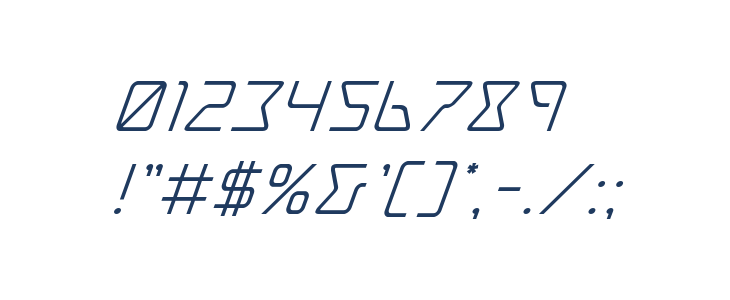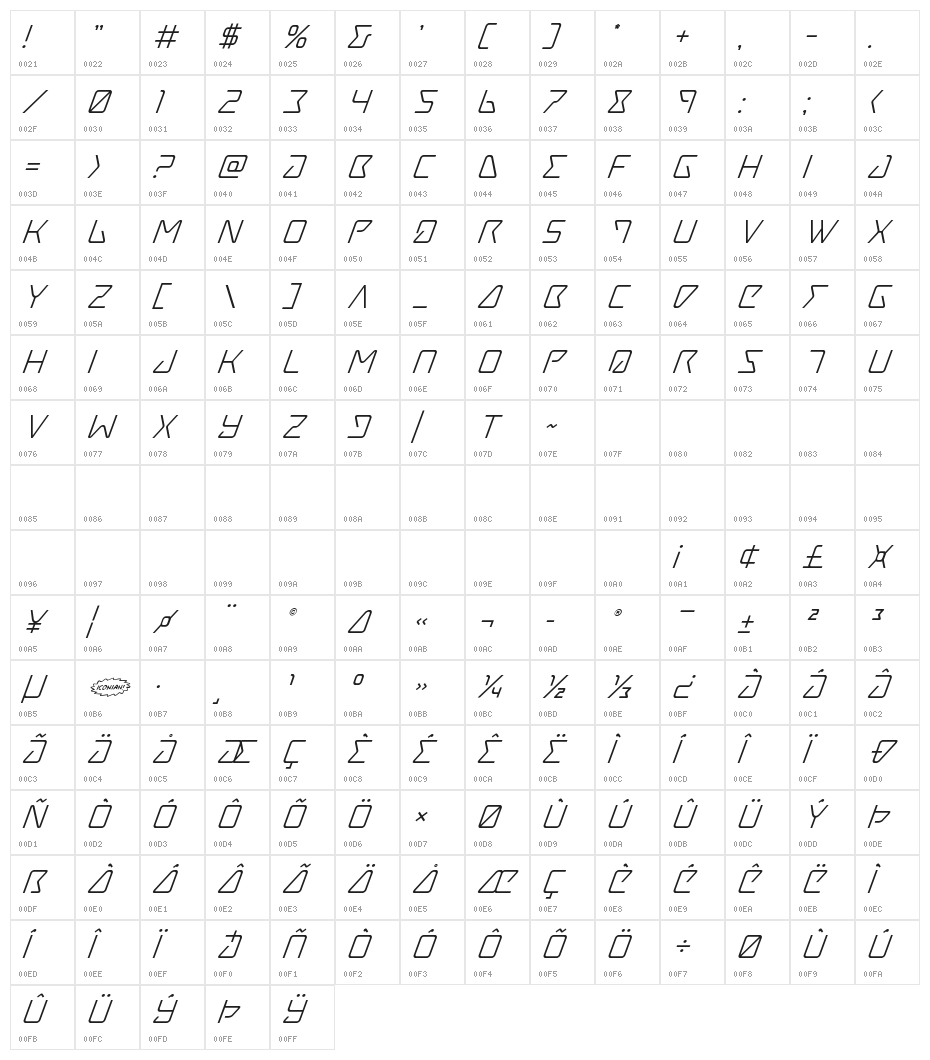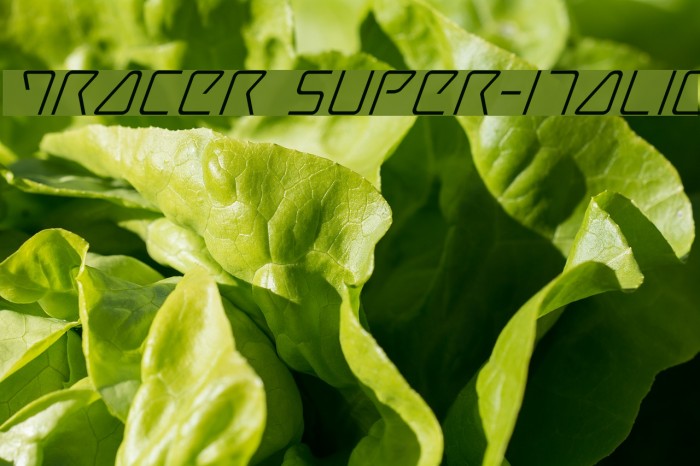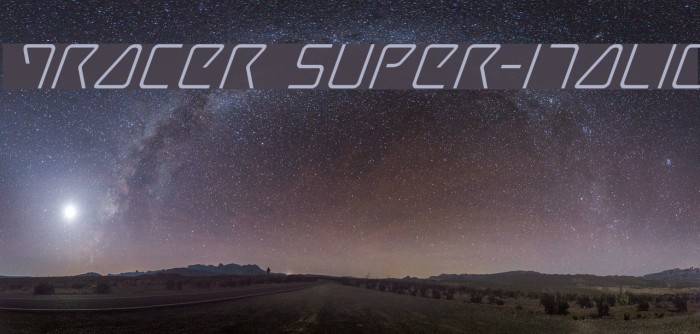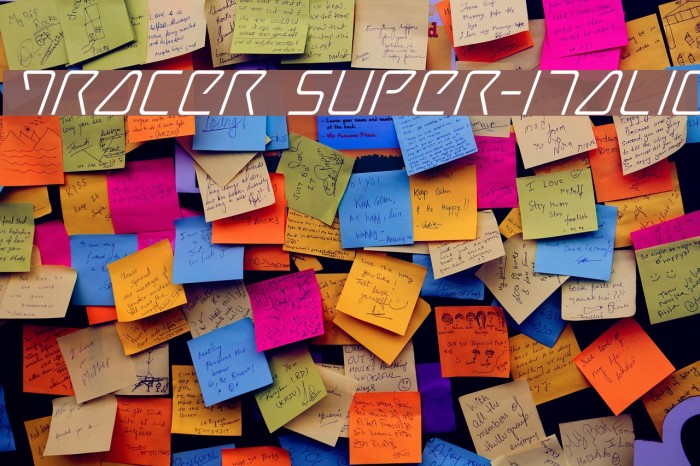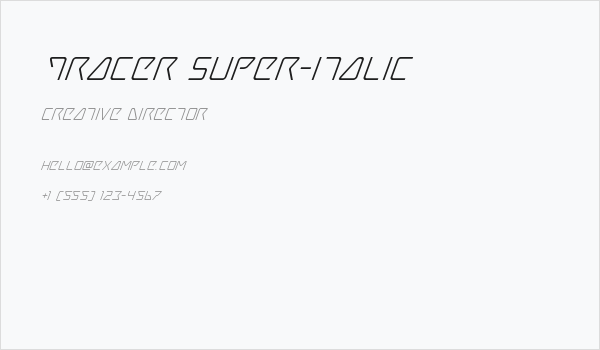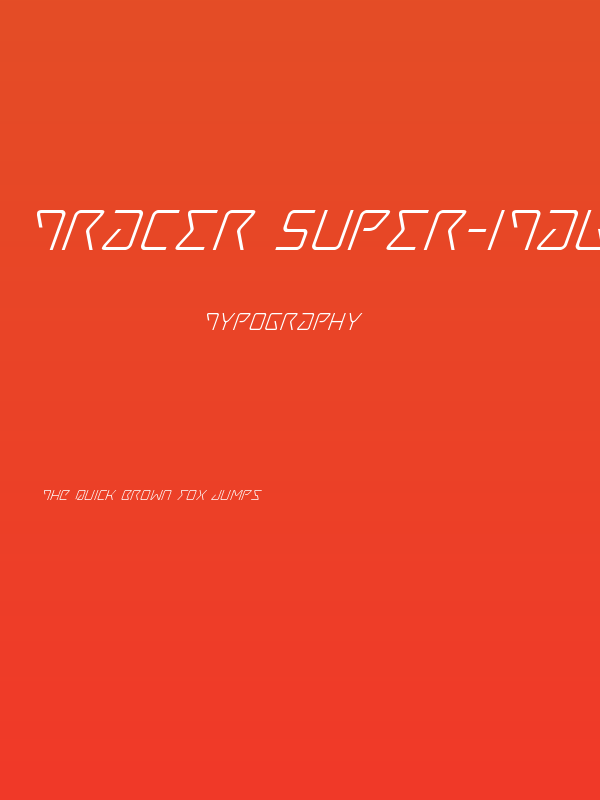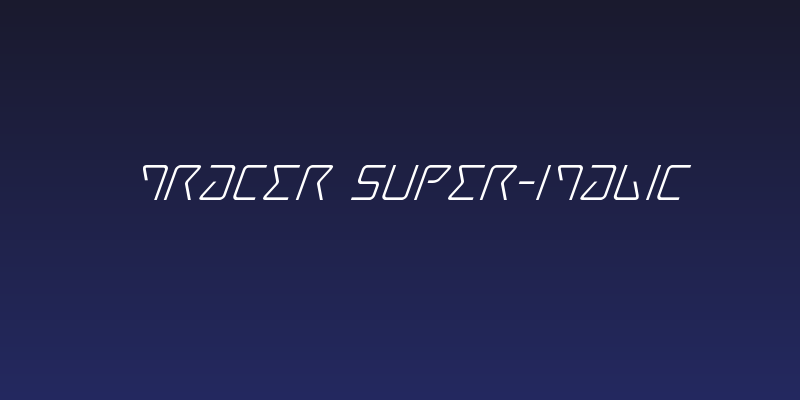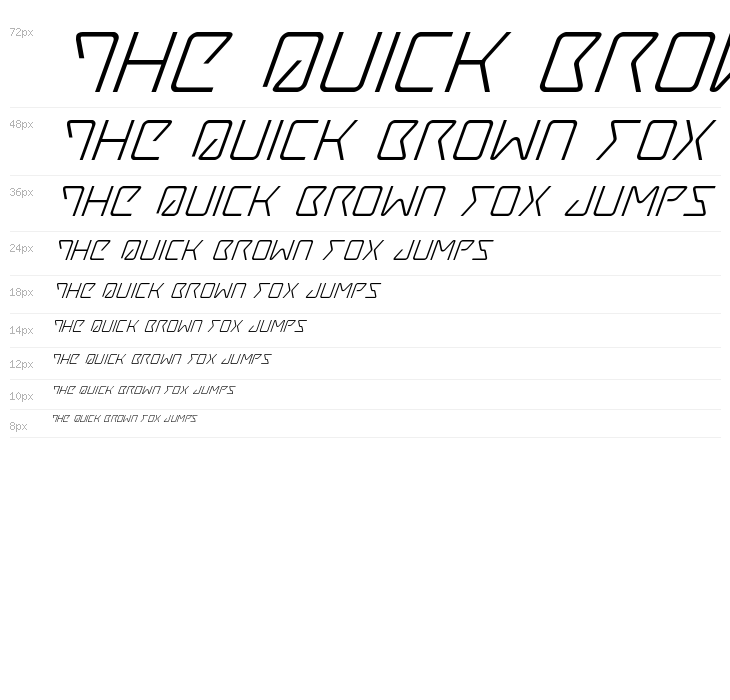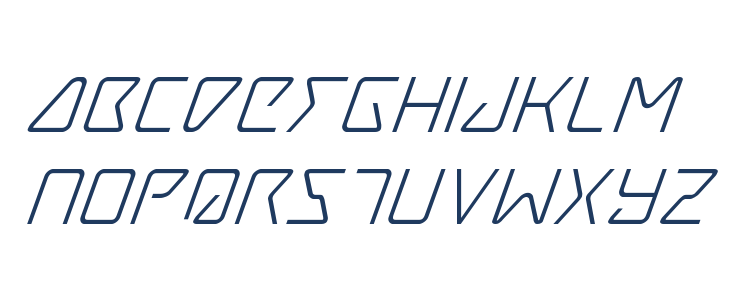
Tracer Super-Italic Font
Tracer Super-Italic Description
This font features a futuristic and angular design, characterized by its sharp edges and geometric forms. The letters are slanted, giving an italicized appearance that adds a sense of motion and speed. The uppercase and lowercase letters maintain a consistent style, with clean lines and a minimalist aesthetic. Numbers and special characters are designed to match the overall angular theme, ensuring uniformity across all glyphs. The font's unique style makes it stand out, suitable for projects that require a modern and edgy look.
| Proposed Projects | Ideal for sci-fi themed designs, tech branding, video game interfaces, and modern advertising. |